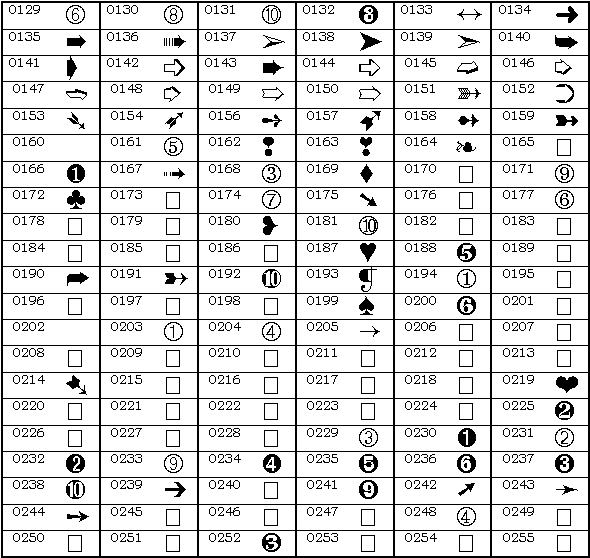
Zapf Dingbats Font
Zapf Dingbats Font - Itc zapf dingbats is a collection of symbols for use with a wide range of contemporary typefaces. Web itc zapf dingbats® font family. Available licenses for all styles: Designed by hermann zapf in 1978.
Available licenses for all styles: Web itc zapf dingbats® font family. Designed by hermann zapf in 1978. Itc zapf dingbats is a collection of symbols for use with a wide range of contemporary typefaces.
Designed by hermann zapf in 1978. Available licenses for all styles: Itc zapf dingbats is a collection of symbols for use with a wide range of contemporary typefaces. Web itc zapf dingbats® font family.
Web itc zapf dingbats® font family. Itc zapf dingbats is a collection of symbols for use with a wide range of contemporary typefaces. Designed by hermann zapf in 1978. Available licenses for all styles:
Itc zapf dingbats is a collection of symbols for use with a wide range of contemporary typefaces. Web itc zapf dingbats® font family. Designed by hermann zapf in 1978. Available licenses for all styles:
Available licenses for all styles: Designed by hermann zapf in 1978. Itc zapf dingbats is a collection of symbols for use with a wide range of contemporary typefaces. Web itc zapf dingbats® font family.
Web itc zapf dingbats® font family. Itc zapf dingbats is a collection of symbols for use with a wide range of contemporary typefaces. Designed by hermann zapf in 1978. Available licenses for all styles:
Itc zapf dingbats is a collection of symbols for use with a wide range of contemporary typefaces. Web itc zapf dingbats® font family. Available licenses for all styles: Designed by hermann zapf in 1978.
Designed by hermann zapf in 1978. Available licenses for all styles: Itc zapf dingbats is a collection of symbols for use with a wide range of contemporary typefaces. Web itc zapf dingbats® font family.
Web itc zapf dingbats® font family. Available licenses for all styles: Designed by hermann zapf in 1978. Itc zapf dingbats is a collection of symbols for use with a wide range of contemporary typefaces.
Web itc zapf dingbats® font family. Designed by hermann zapf in 1978. Itc zapf dingbats is a collection of symbols for use with a wide range of contemporary typefaces. Available licenses for all styles:
Designed by hermann zapf in 1978. Web itc zapf dingbats® font family. Itc zapf dingbats is a collection of symbols for use with a wide range of contemporary typefaces. Available licenses for all styles:
Web Itc Zapf Dingbats® Font Family.
Designed by hermann zapf in 1978. Available licenses for all styles: Itc zapf dingbats is a collection of symbols for use with a wide range of contemporary typefaces.